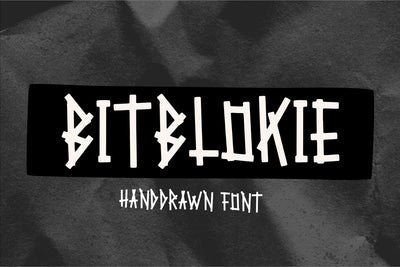
Bit Blokie
Introducing Bit Blockie Font by Forberas Club
Bit Blokie is a Modern Handwritten Font. Bit Blokie perfect for book cover, product packaging, branding project, megazine, social media, skate zine, band font, or just used to express words above the background. This font includes TTF and OTF, This font also multilingual support.